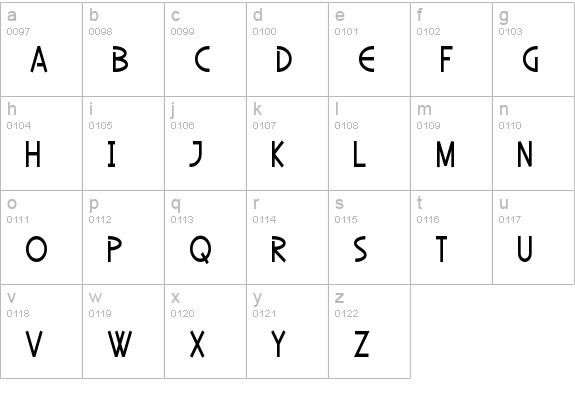
SF Diego Sans Condensed Font Details
SF Diego Sans Condensed is a distinctive, condensed-width variant in the SF typeface family \xE2\x80\x94 well suited to design and typography projects.
SF Diego Sans Condensed is a modern and stylish font that exudes a sense of sophistication and professionalism. This condensed version of the original SF Diego Sans font offers a sleek and streamlined appearance, making it perfect for a wide range of design projects. The clean lines and balanced proportions of SF Diego Sans Condensed lend themselves well to various typographic applications, such as headlines, titles, branding materials, and more. Its versatility allows it to be used in both print and digital projects, ensuring that your message is conveyed in a visually appealing and impactful way. One of the best features of SF Diego Sans Condensed is that it is available for free! You can easily download this exceptional font from FontsMarket.com, a trusted source for high-quality fonts. By offering this font for free, the creators of SF Diego Sans Condensed are making it accessible to a wide audience of designers, regardless of budget constraints. Whether you are a seasoned graphic designer or just starting out, SF Diego Sans Condensed provides you with a valuable tool to enhance your creative projects. Its sleek and modern aesthetic, combined with its freely available download, makes it a must-have font in your collection. Embrace the elegance and versatility of SF Diego Sans Condensed today. Download it for free at FontsMarket.com and elevate your designs to new heights.